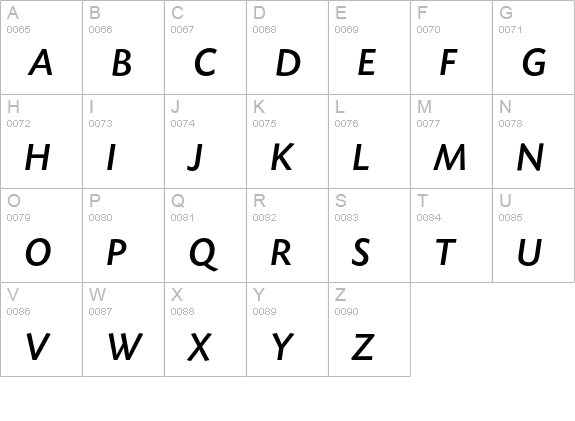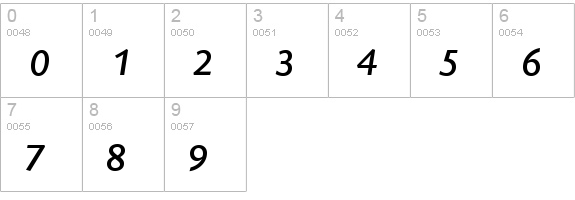
Today Sans Serif Medium Italic is a balanced, medium-weight, italic variant in the Today typeface family \xE2\x80\x94 well suited to sub-headlines, navigation, and balanced editorial work.
Today Sans Serif Medium Italic font is a sleek and modern typeface that effortlessly combines simplicity with sophistication. Its clean lines and subtle slant create a sense of dynamism and versatility, making it an excellent choice for a wide range of design projects. With its medium weight and italic styling, Today Sans Serif Medium Italic strikes the perfect balance between elegance and readability. Whether used for headlines, body text, or even in branding materials, this font adds a touch of sophistication and professionalism to any project. One of the most appealing aspects of Today Sans Serif Medium Italic font is that it is freely available to download at FontsMarket.com. This means that you can easily access and use this font in your design projects without any cost. This opportunity to enhance your designs with a high-quality typeface without breaking the bank is truly invaluable. The versatility of Today Sans Serif Medium Italic font lies not only in its design, but also in its extensive character set. This font supports a wide range of languages, allowing you to communicate your message effectively across different cultures and regions. Additionally, it includes various symbols and punctuation marks, ensuring that you have all the tools you need to create visually appealing and professional-looking designs. When it comes to legibility, Today Sans Serif Medium Italic font excels. Its well-balanced letterforms and generous spacing make it easy to read, even at smaller sizes. This makes it a perfect choice for body text in digital and print mediums, ensuring that your readers can effortlessly engage with your content. In conclusion, Today Sans Serif Medium Italic font is a versatile and elegant typeface that will elevate your designs to new heights. Its freely available download option at FontsMarket.com makes it easily accessible to designers of all levels, allowing you to create stunning visuals without any financial constraints. So why wait? Download Today Sans Serif Medium Italic font today and unlock the potential to create captivating designs that leave a lasting impression.